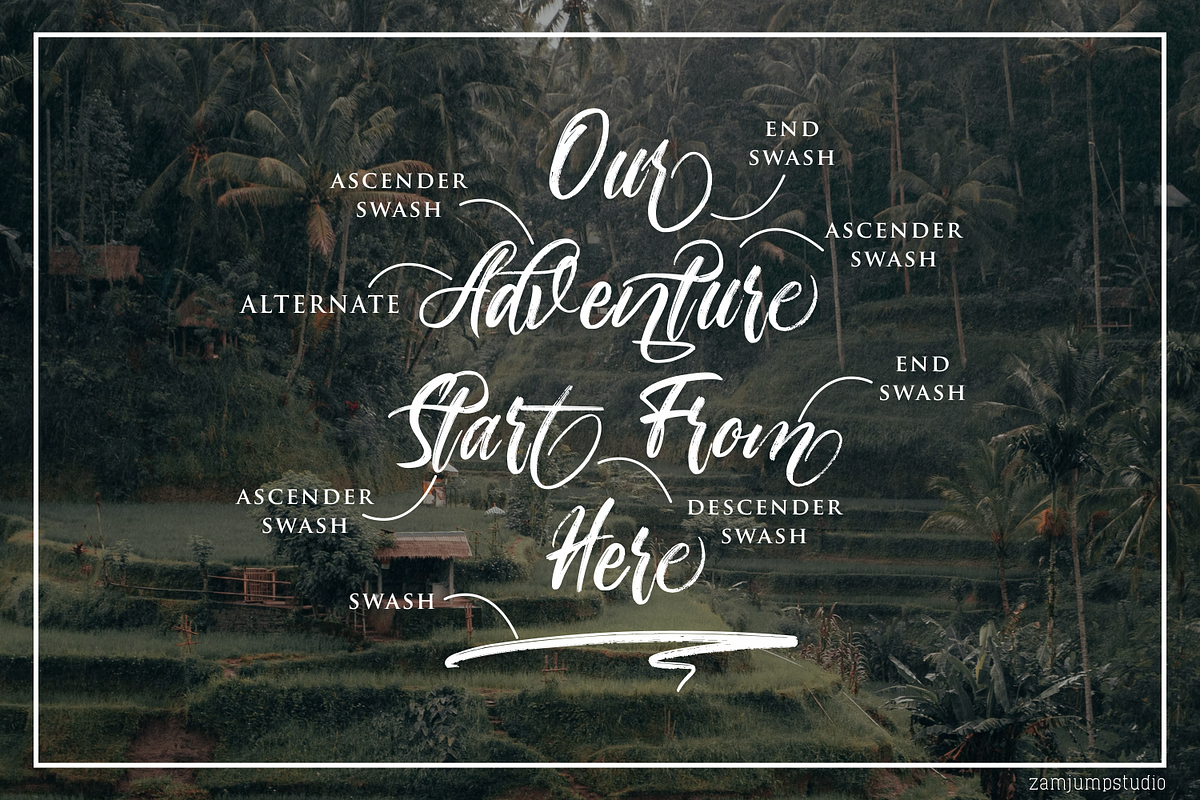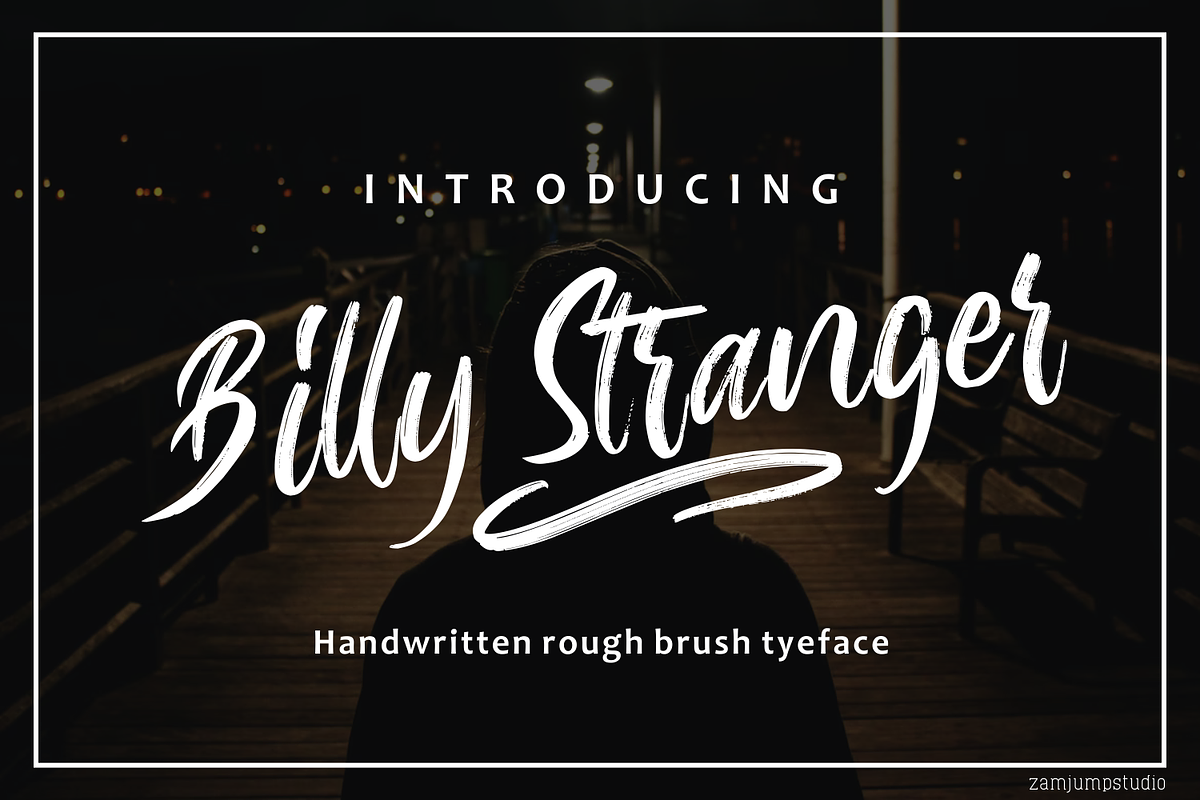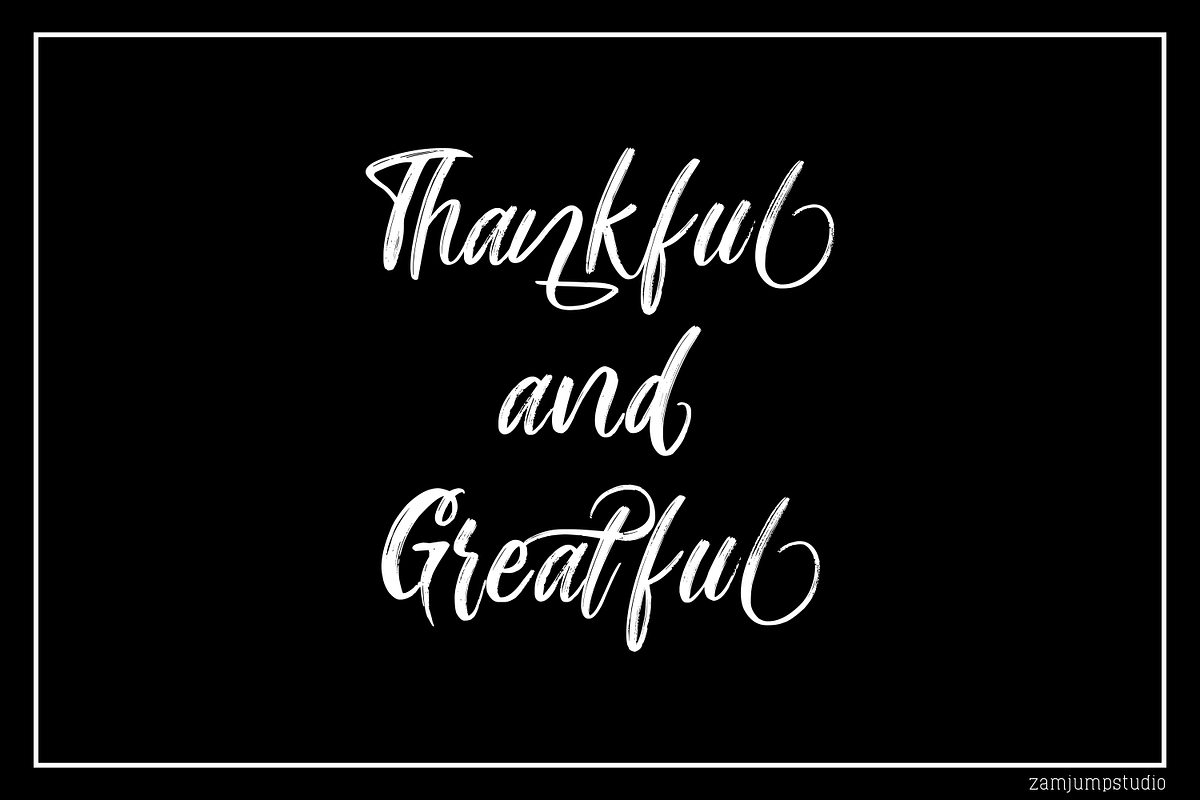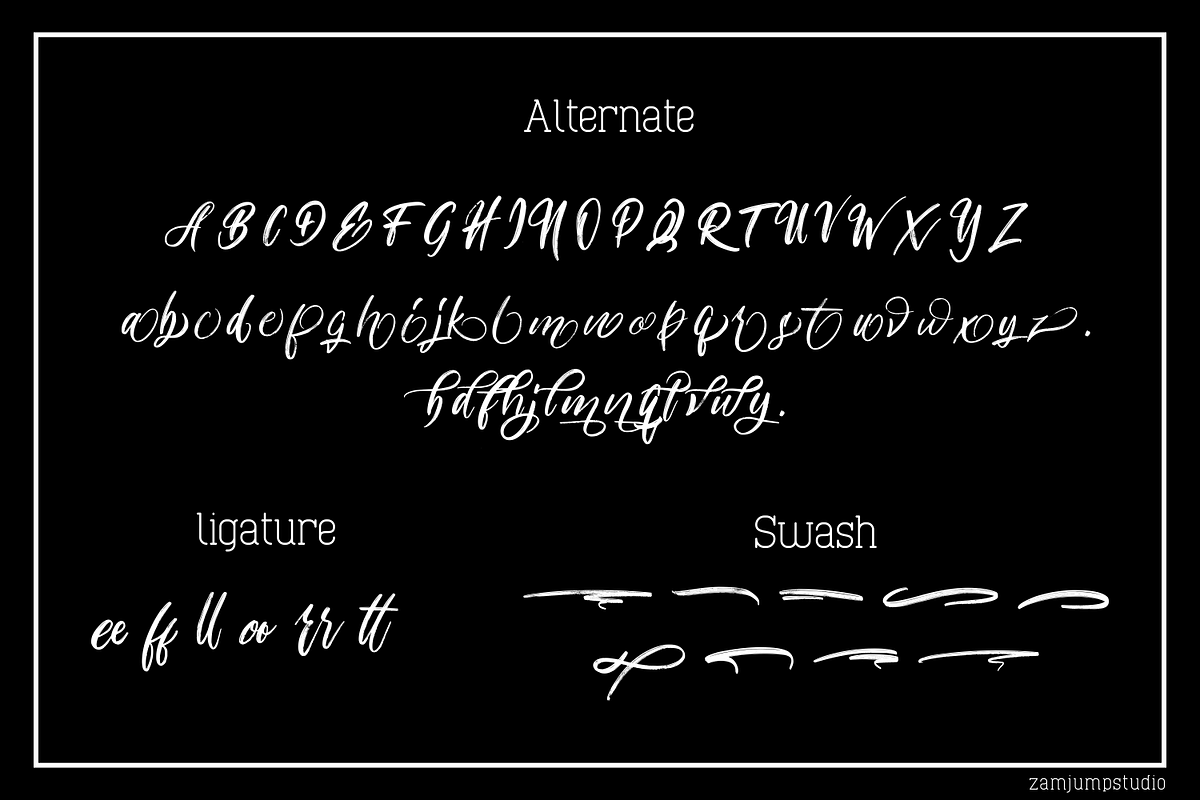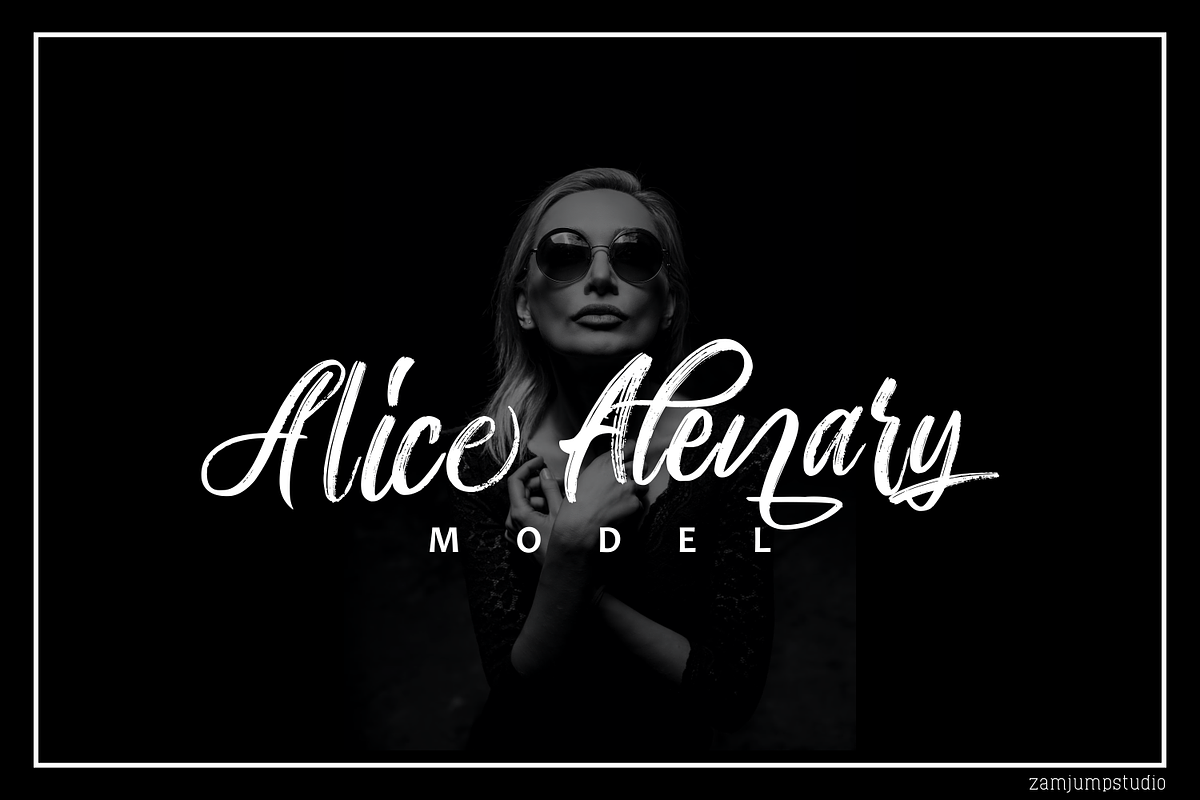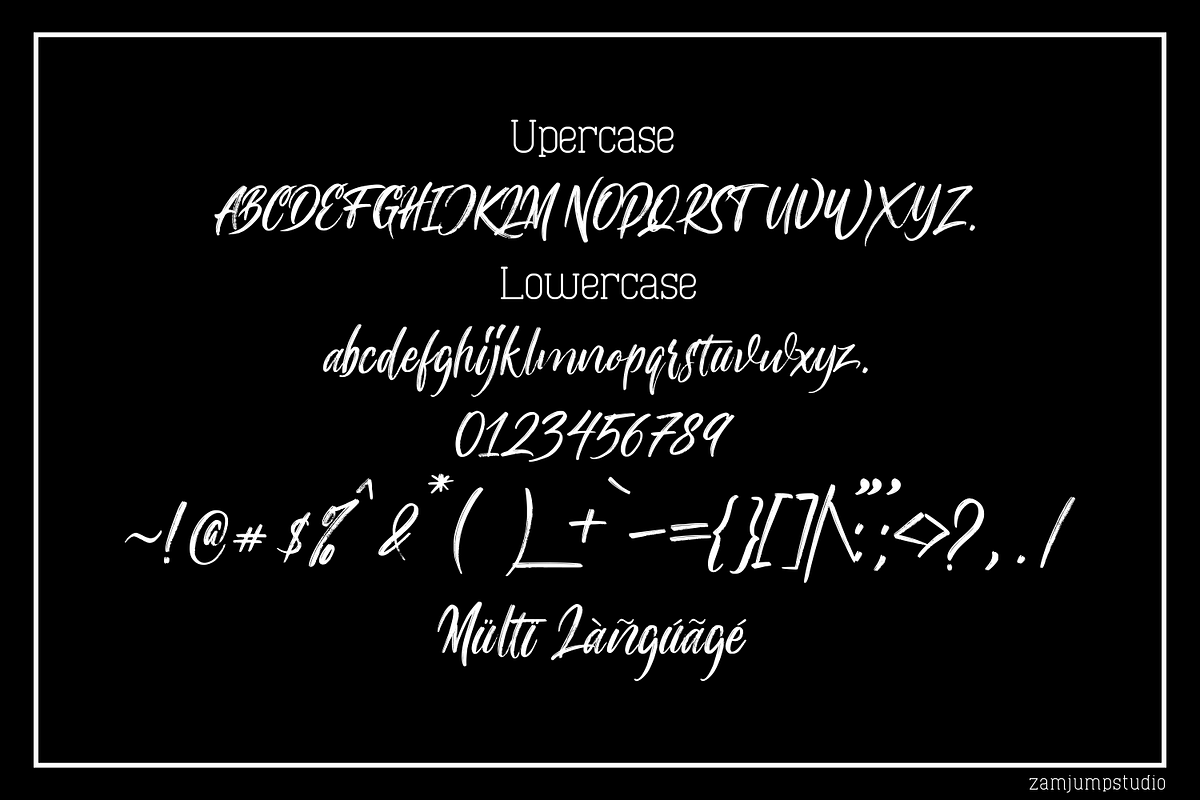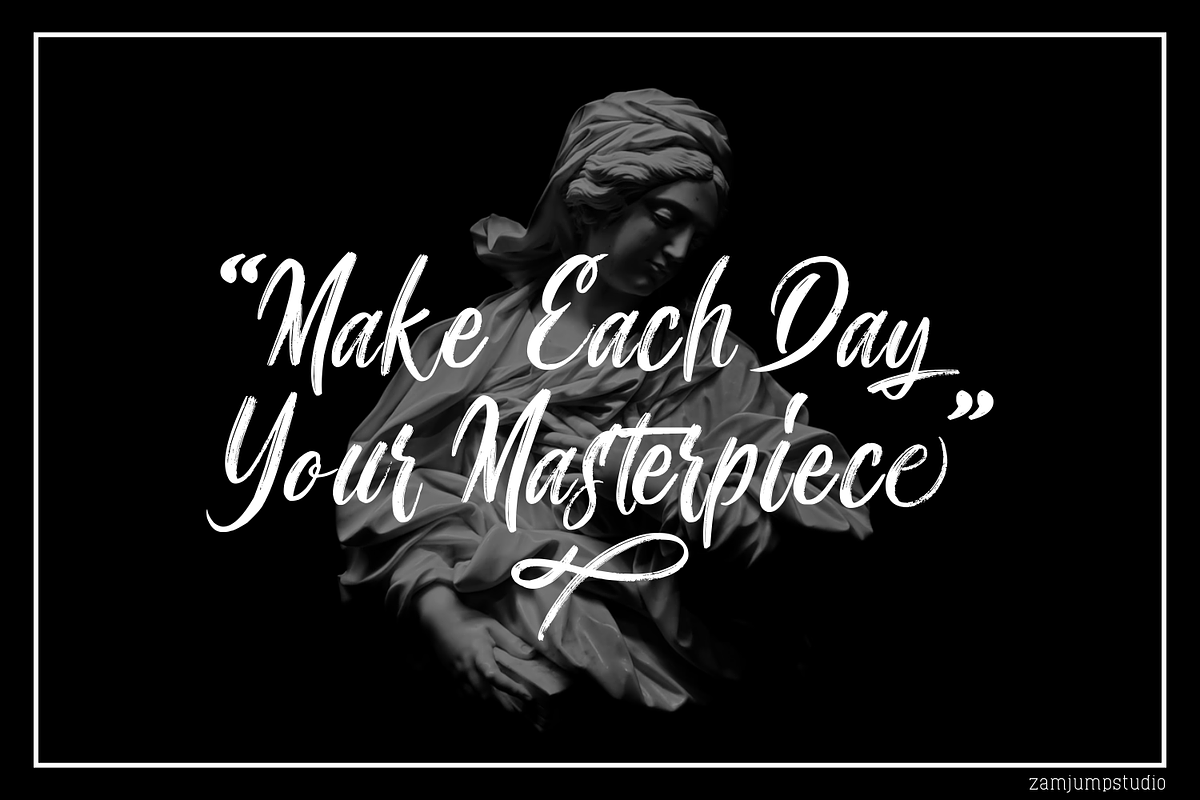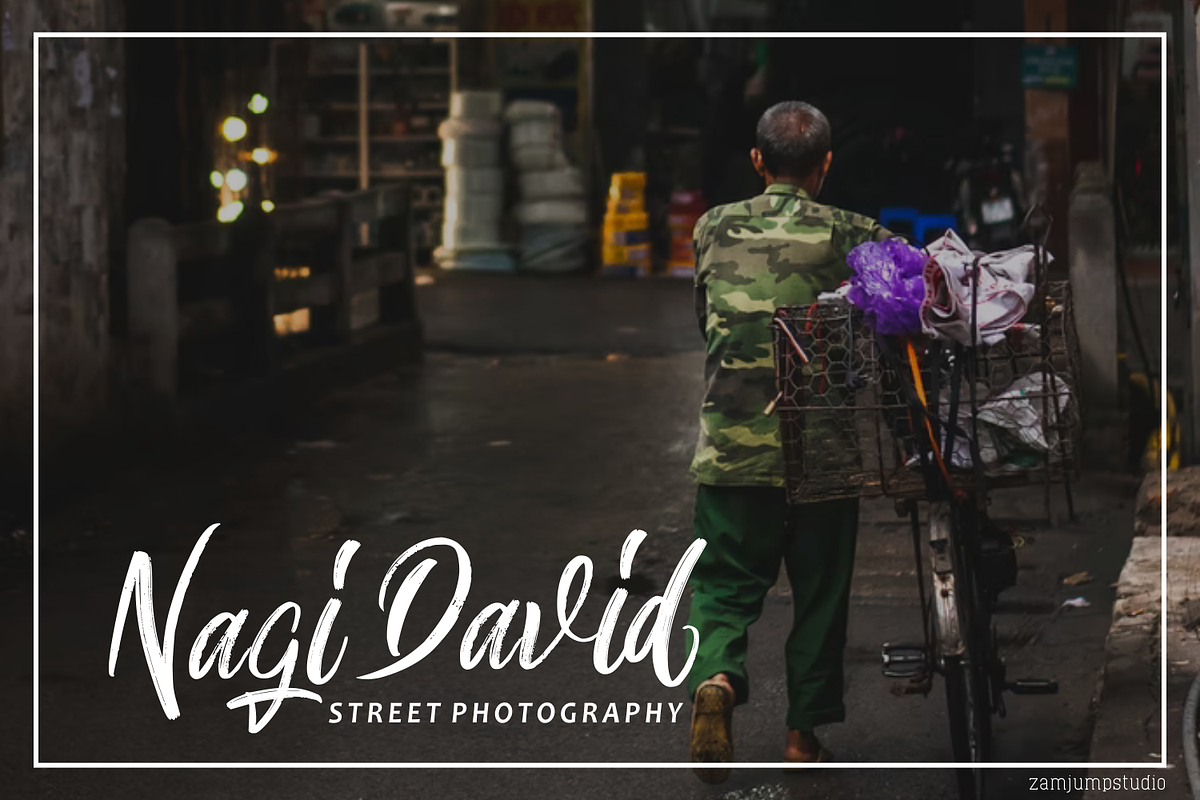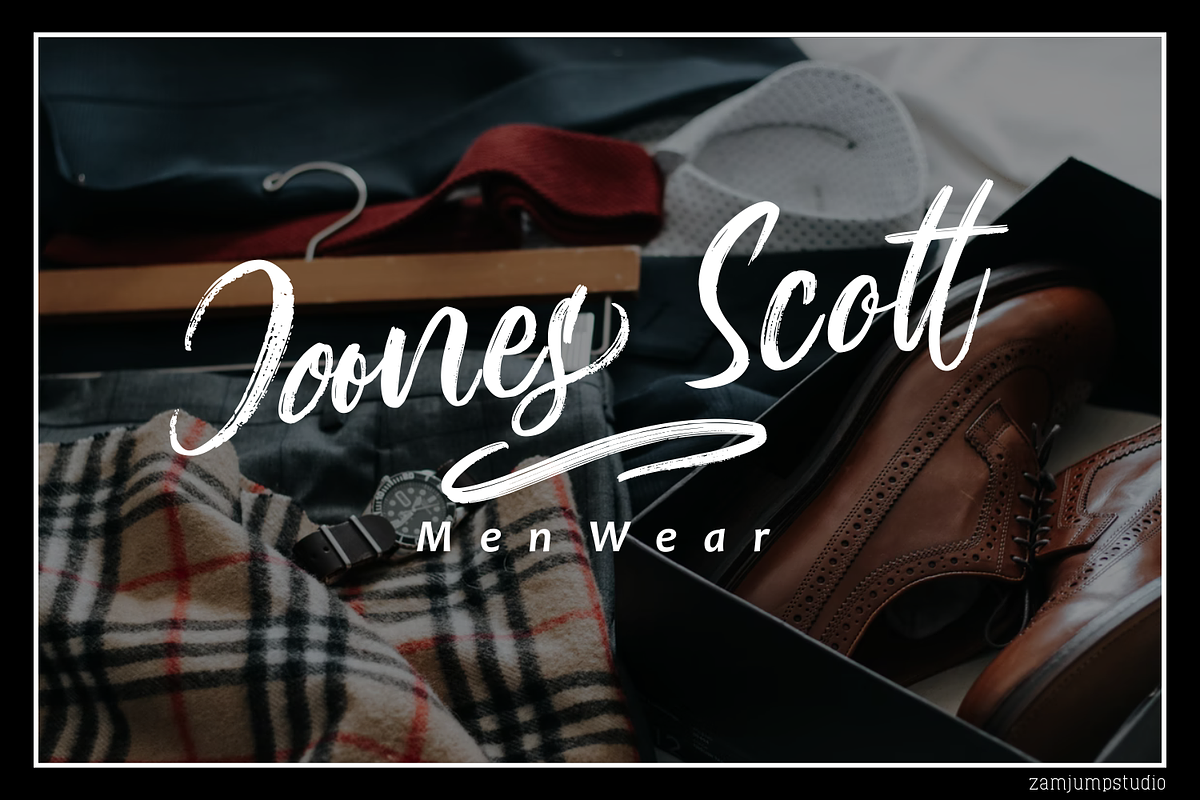
Billy Stranger
Billy Stranger handwritten typeface with a personal charm and classy style, With quick dry strokes and a signature style, Billy Stranger is perfect for branding projects, homeware designs, product packaging - or simply as a stylish text overlay to any background image like quote images.